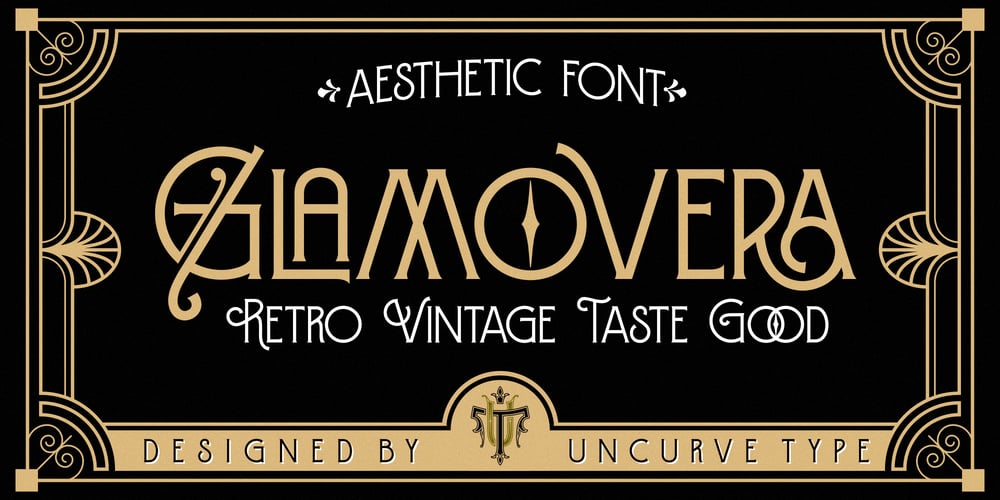
Glamovera Font Family was designed by Ferry Septian and published by Uncurve. Glamovera contains 1 styles and family package options. Introducing “Glamovera,” a vintage serif font that captures the timeless elegance of retro typography, drawing inspiration from the grandeur of vintage posters and the sophistication of Art Deco design. Glamovera is not just a font—it’s a journey back in time, bringing with it the refined aesthetics of a bygone era to your modern design projects.Glamovera comes with a variety of alternate characters and ligatures, allowing you to craft designs that are truly unique and visually captivating. Its versatile style makes it an excellent choice for a wide range of applications, including authentic logos, retro and vintage designs, posters, branding, magazines, book and album covers, movie posters, apparel designs, flyers, labels, product packaging, music posters, and more.Whether you’re aiming to create a nostalgic vintage logo, an eye-catching Art Deco-inspired invitation card, or a modern yet classic signage, Glamovera has the flexibility and elegance to elevate your work. The font’s intricate details and stylish features make it perfect for adding a touch of class to formal designs while also fitting seamlessly into more contemporary projects.In summary, Glamovera is a beautiful blend of vintage and modern, offering the best of both worlds. Its aesthetic appeal, inspired by the past, makes it an essential tool for designers looking to create timeless, sophisticated, and memorable visuals.